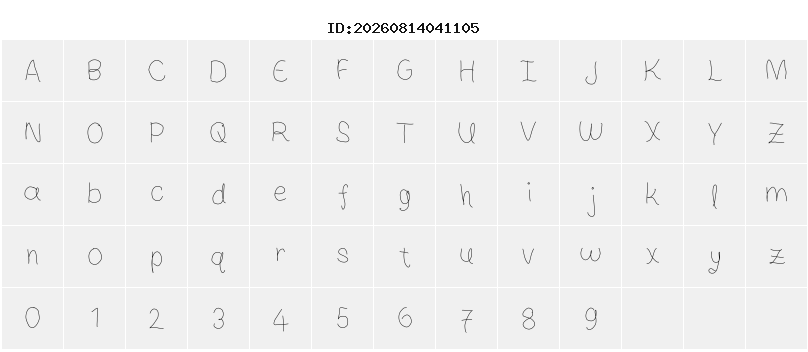
• Font Name: Sweet Life
• Full Font Name: Sweet Life
About Sweet Life.ttf
Sweet Life.ttf is a modern, elegant sans-serif font designed for ultimate readability and visual harmony. Perfect for branding, headlines, web design, and print materials.